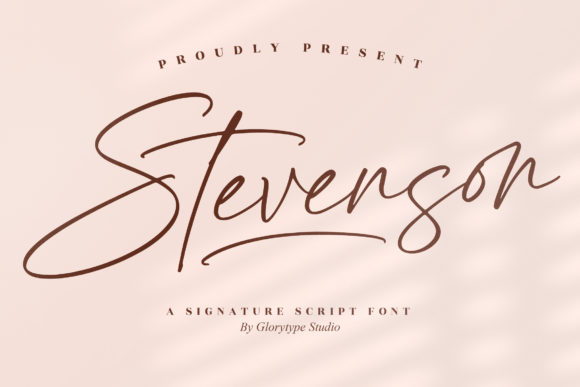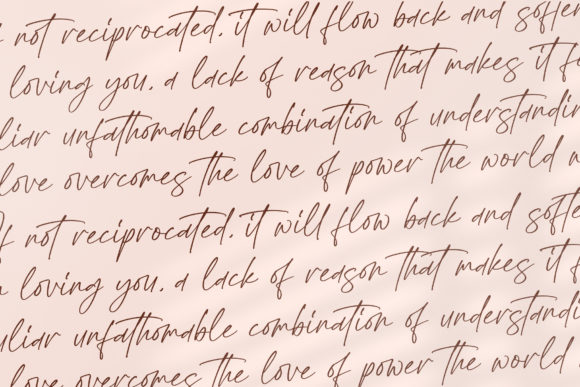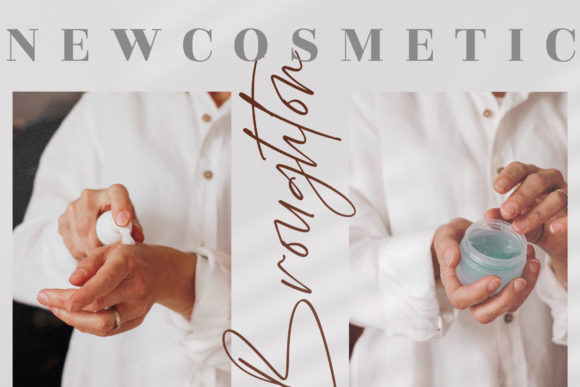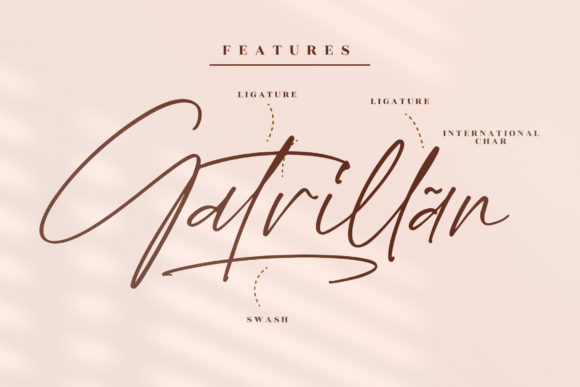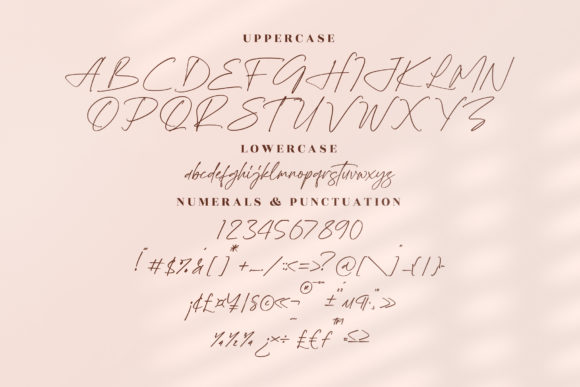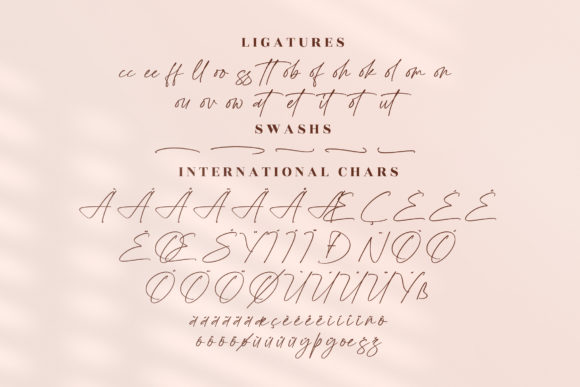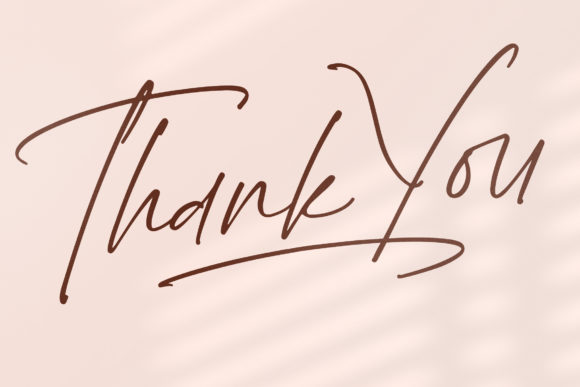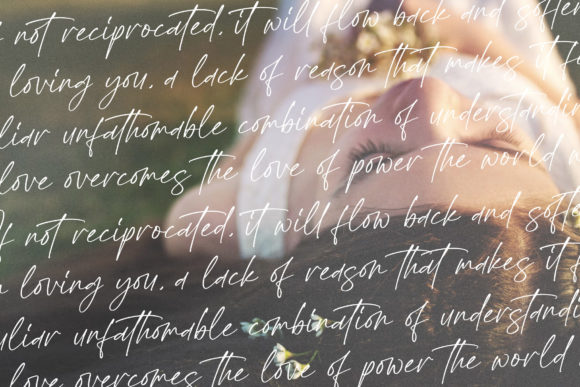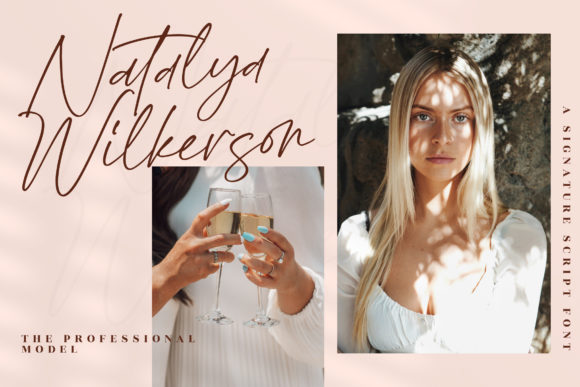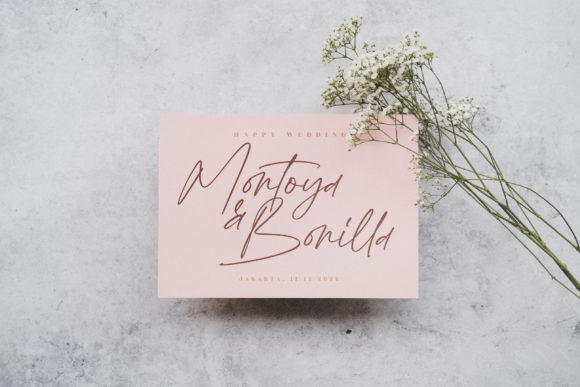
Stevenson Font
Introducing “Stevenson,” a free-flowing script font meticulously crafted for packaging products, invitation cards, flyers, mockups, event posters, and any other project that demands high-quality vibes. With its beautiful and balanced characters, Stevenson seamlessly integrates into a wide range of designs, enhancing their appeal with its elegant script.
Stevenson’s fluid strokes and graceful curves bring a sense of sophistication and charm to your projects. Whether you’re designing packaging for luxury goods, creating elegant invitations for special occasions, or crafting eye-catching flyers and posters, this font adds a touch of refinement and style to every design.
With PUA encoding, accessing the vast array of glyphs and swashes is effortless, allowing you to customize your designs with ease. Whether you’re adding flourishes, ligatures, or other embellishments, Stevenson offers endless possibilities for creative expression.
Experience the versatility and quality of Stevenson and witness how it elevates your designs to new heights. Whether you’re a professional designer or a passionate enthusiast, this font invites you to explore your creativity and express yourself with confidence and flair.
Unlock the full potential of your designs with Stevenson and let its free-flowing script font breathe life into your projects. With its high-quality vibes and timeless elegance, this font is sure to become a valuable asset in your design toolkit, enhancing every creation with its exquisite charm.